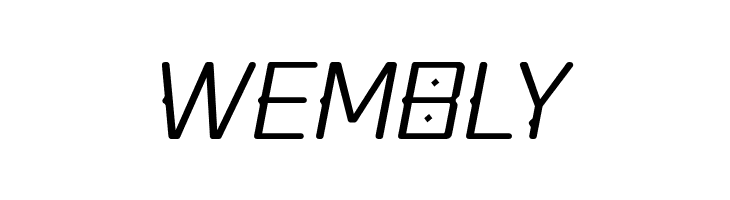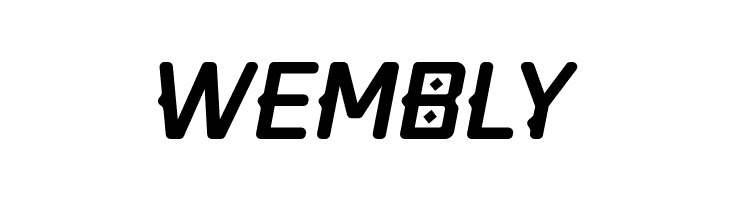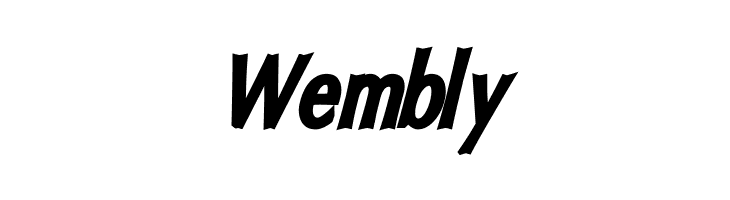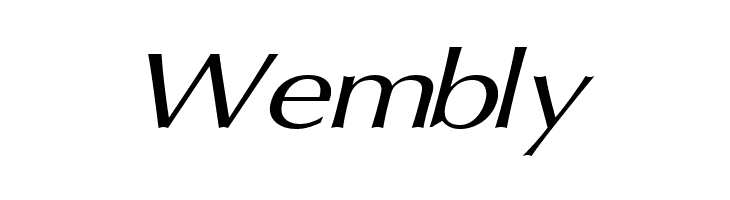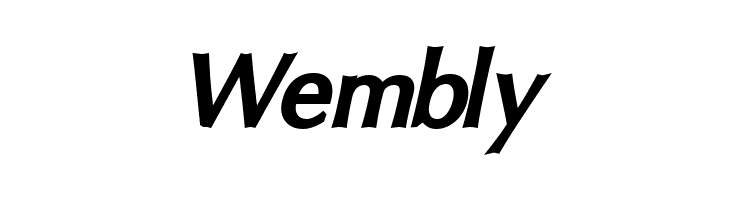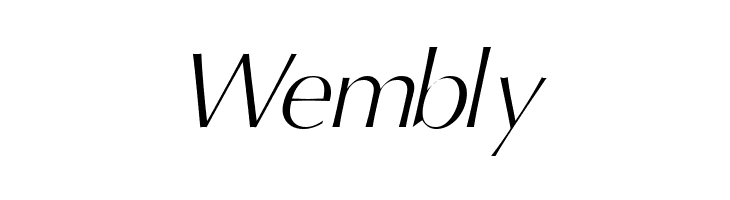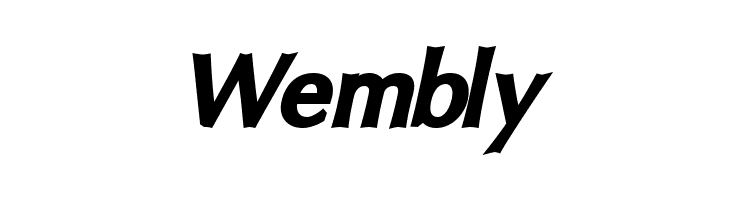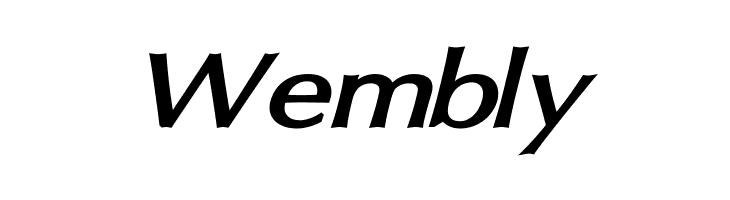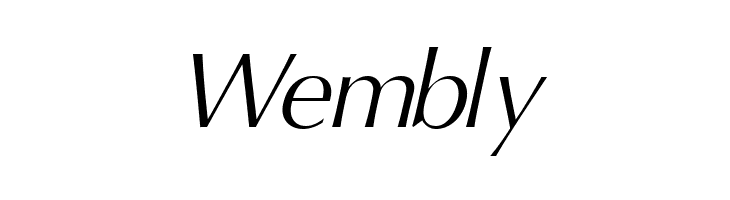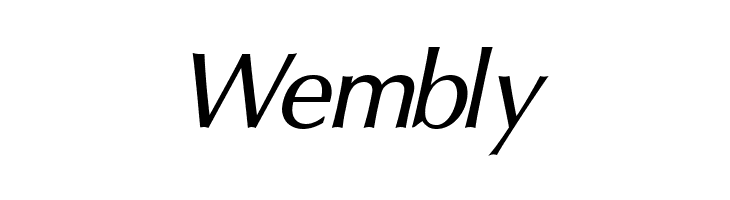
A modern, geometric oblique font with clean lines and a dynamic style.
A bold, geometric oblique font with a modern and dynamic style.
A bold, condensed, and oblique font with a modern and dynamic style.
An elegant oblique font with elongated, dynamic characters.
A bold, oblique font with a strong slant and thick strokes.
An elegant, light oblique font with sleek, elongated characters.
A bold, oblique font with strong, slanted letterforms for a dynamic and modern look.
A bold, ultra-black oblique font with strong, dynamic strokes.
A bold, oblique, and extended font with a modern and dynamic style.
A bold, oblique font with a dynamic and energetic style.
An elegant, oblique font with a modern and sophisticated style.
A modern oblique font with smooth, slanted letterforms and moderate contrast.
A dynamic, oblique font with elegant curves and sharp edges.
An elegant oblique font with smooth, flowing lines and a modern aesthetic.
A bold, oblique, and condensed font with a modern and dynamic style.
A bold, oblique font with a modern and dynamic style.
A bold, oblique, and extended font with a dynamic and modern style.
A bold, oblique font with a vanishing effect created by horizontal lines.
A sleek, condensed, and oblique font with a modern, dynamic style.
A modern oblique font with a vanishing line effect, offering a dynamic and sleek appearance.
A modern, oblique sans-serif font with clean lines and balanced spacing.
A modern, semi-bold, oblique sans-serif font with a clean and dynamic style.
A bold, oblique sans-serif font with a modern and dynamic style.
A sleek, modern sans-serif font with a light, oblique style.
A bold, oblique font with a dynamic and modern style.
A bold, oblique font with a modern and dynamic style.
A modern, oblique outlined font with a dynamic and geometric style.
A modern, oblique sans-serif font with a dynamic and sleek design.
A bold, oblique font with a modern and dynamic style.
A modern, oblique font with clean, geometric lines and consistent stroke widths.
A modern, oblique sans-serif font with clean lines and dynamic style.
A sleek, modern oblique font with a light weight and clean, minimalist design.